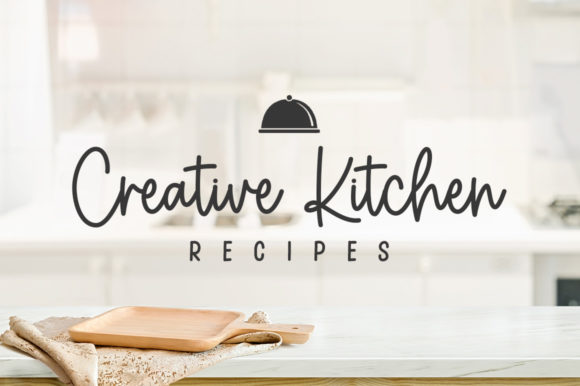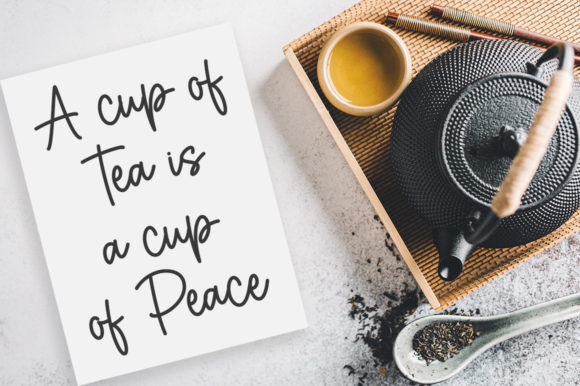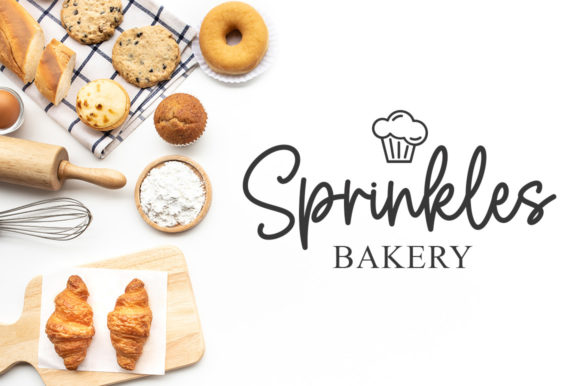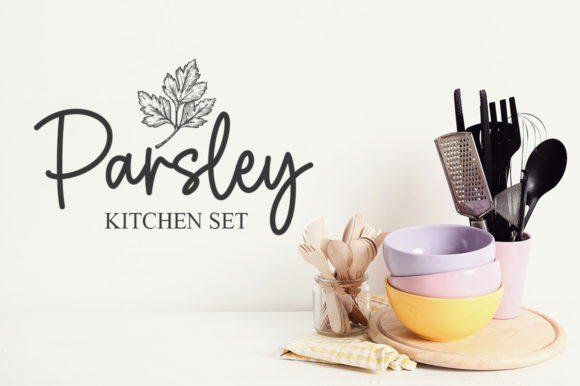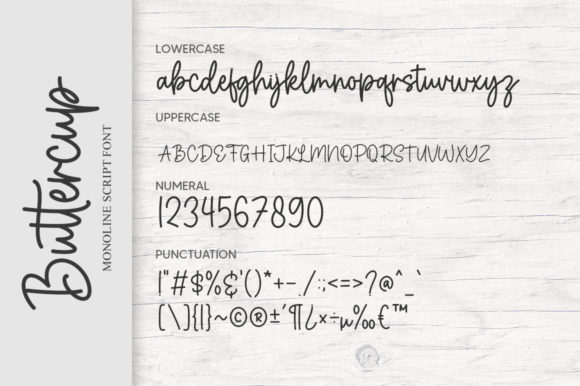
The Sweet Charm of Buttercup Font: A Designer’s Delight
I still remember the time I was working on a wedding invitation project, and my client asked me to create a custom design that exuded romance and elegance. As I scrolled through my font library, I stumbled upon Buttercup Font, and it instantly stole my heart. Its dainty and flowing handwritten style seemed to whisper sweet nothings, making it the perfect fit for the project. In this article, I’ll share my love for Buttercup Font, its features, and how to make the most of it in your designs.
An Honest Review of Buttercup Font
So, what makes Buttercup Font so special? Here are a few things I love about it:
- ✨ Sweet and joyful personality: Buttercup Font has a playful and cheerful vibe that makes it perfect for wedding invitations, cards, and other designs that require a romantic touch.
- ✅ Highly legible: Despite its delicate nature, Buttercup Font is surprisingly easy to read, making it suitable for both digital and print designs.
- 💕 Emotional connection: The font’s handwritten style creates an emotional connection with the reader, making it ideal for designs that require a personal touch.
However, like any font, Buttercup Font has its quirks:
- 🤔 Limited use in long-form text: While Buttercup Font is beautiful, it may not be the best choice for long-form text due to its delicate nature and potential readability issues.
- ⚠️ Kerning issues in some platforms: Some users have reported kerning issues when using Buttercup Font in certain design platforms, so it’s essential to check and adjust the kerning manually.
- Explore glyphs and OpenType features like swashes and alternates to add more flair to your text.
The Story Behind Buttercup Font
Buttercup Font was designed with love and care by a talented type designer who wanted to create a font that would evoke feelings of joy and romance. Inspired by traditional handwriting and calligraphy, Buttercup Font is a beautiful example of modern typography.
| What is Buttercup Font best used for? | Buttercup Font is ideal for designs that require a romantic and personalized touch, such as wedding invitations, cards, and other stationery. |
| Is Buttercup Font suitable for long-form text? | While Buttercup Font is beautiful, it may not be the best choice for long-form text due to its delicate nature and potential readability issues. |